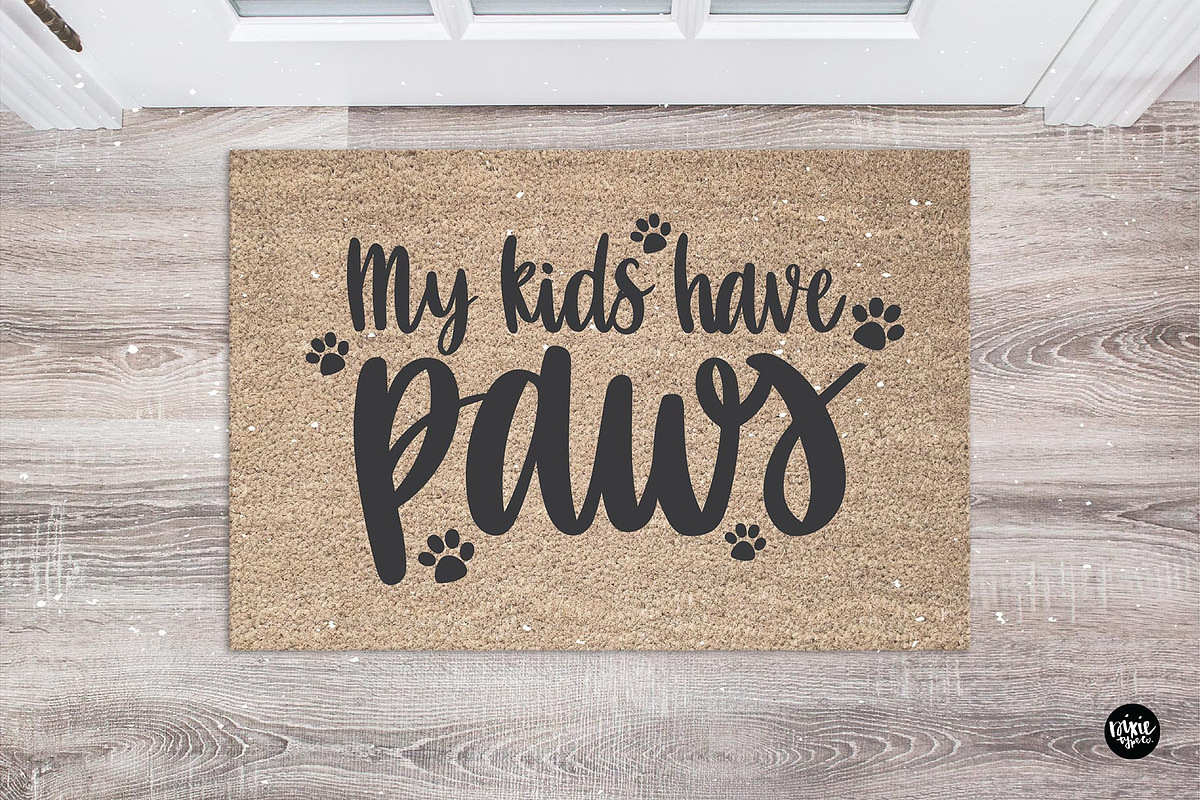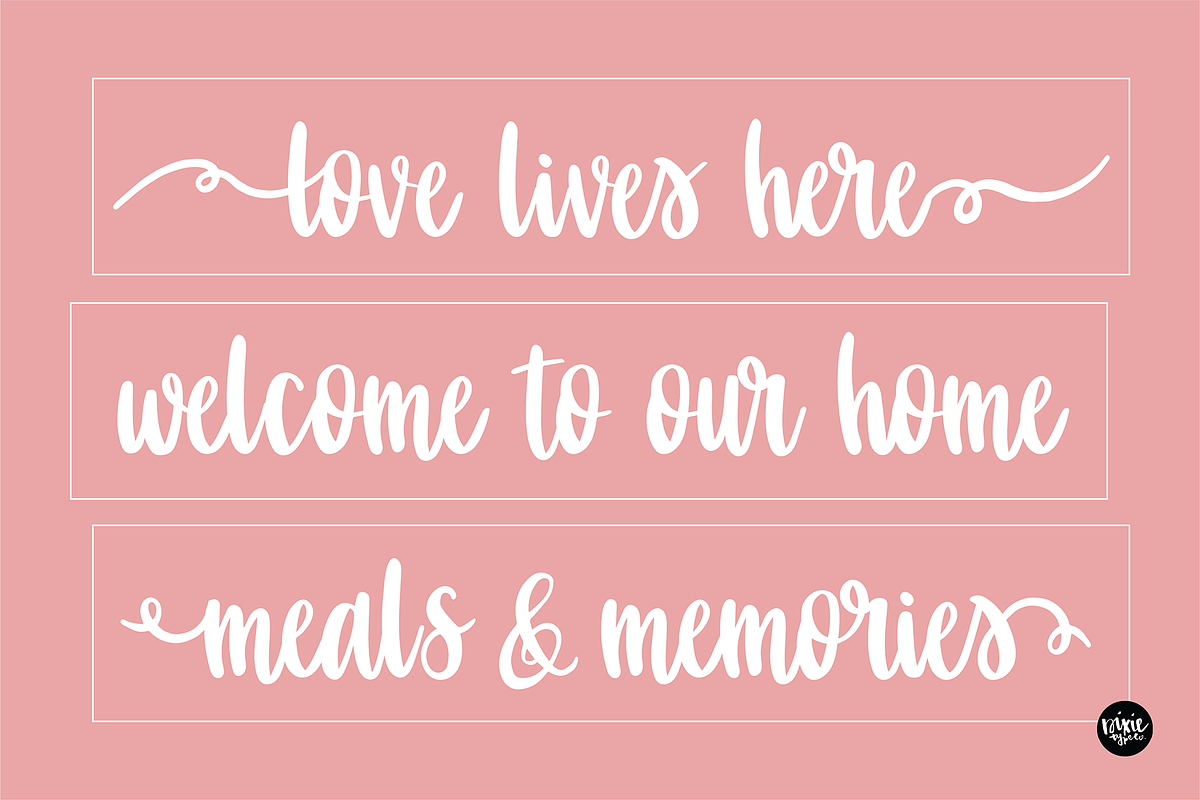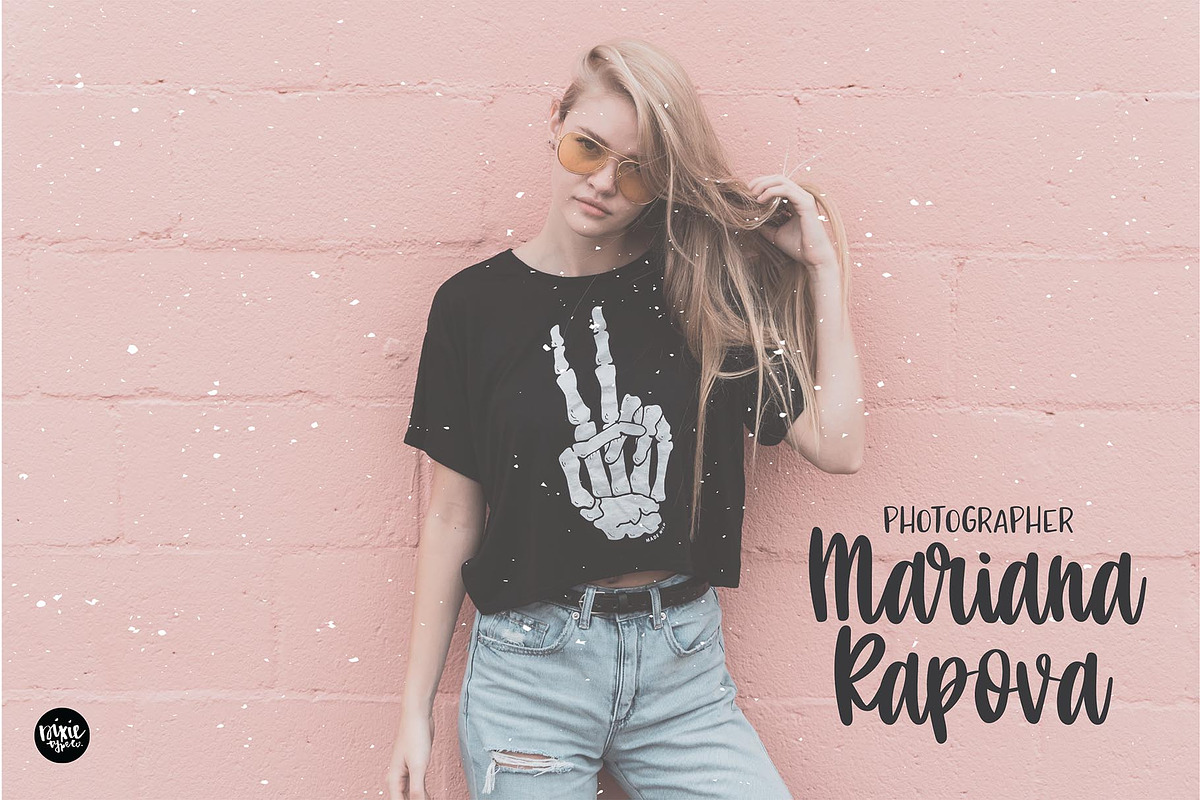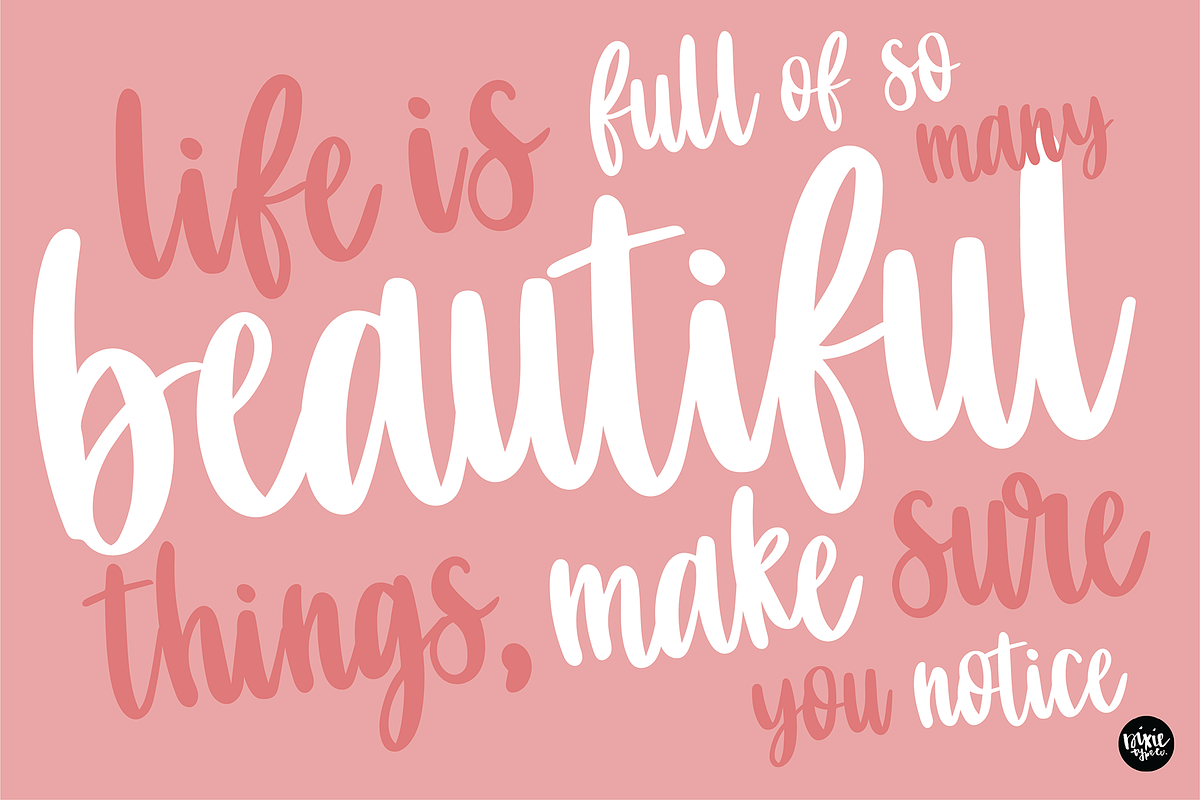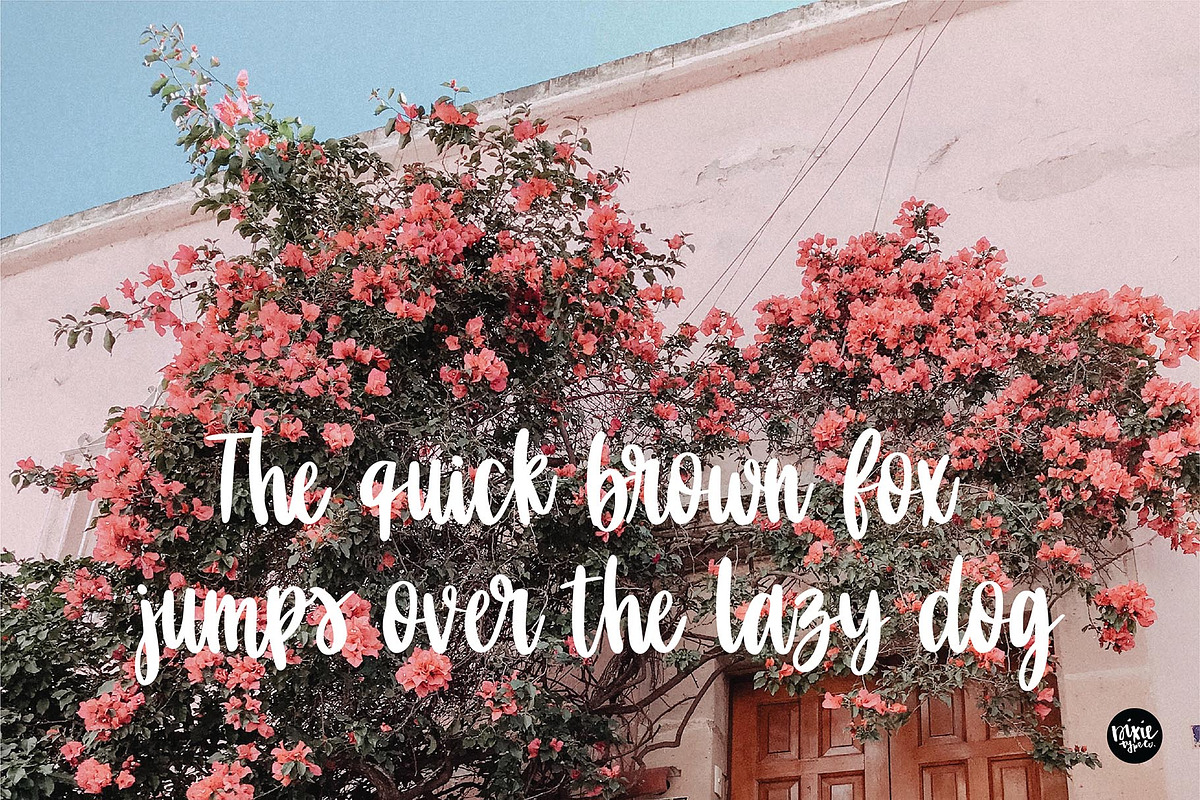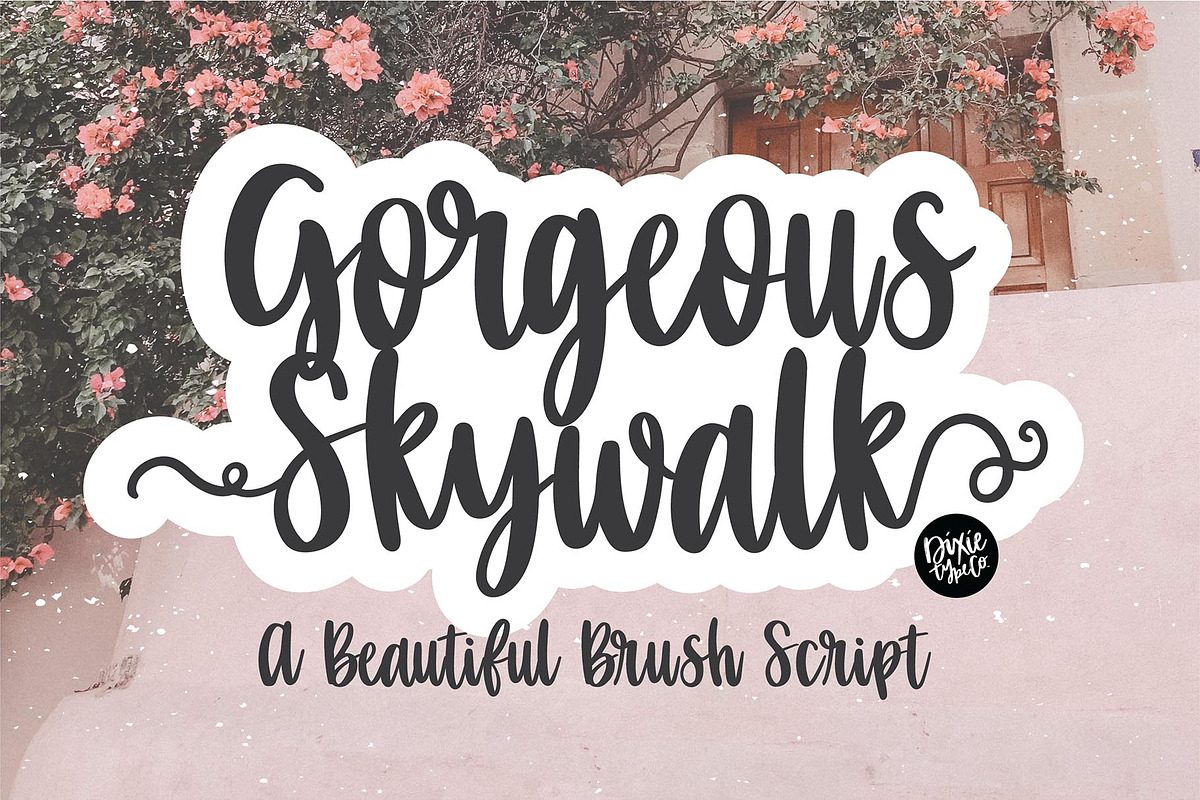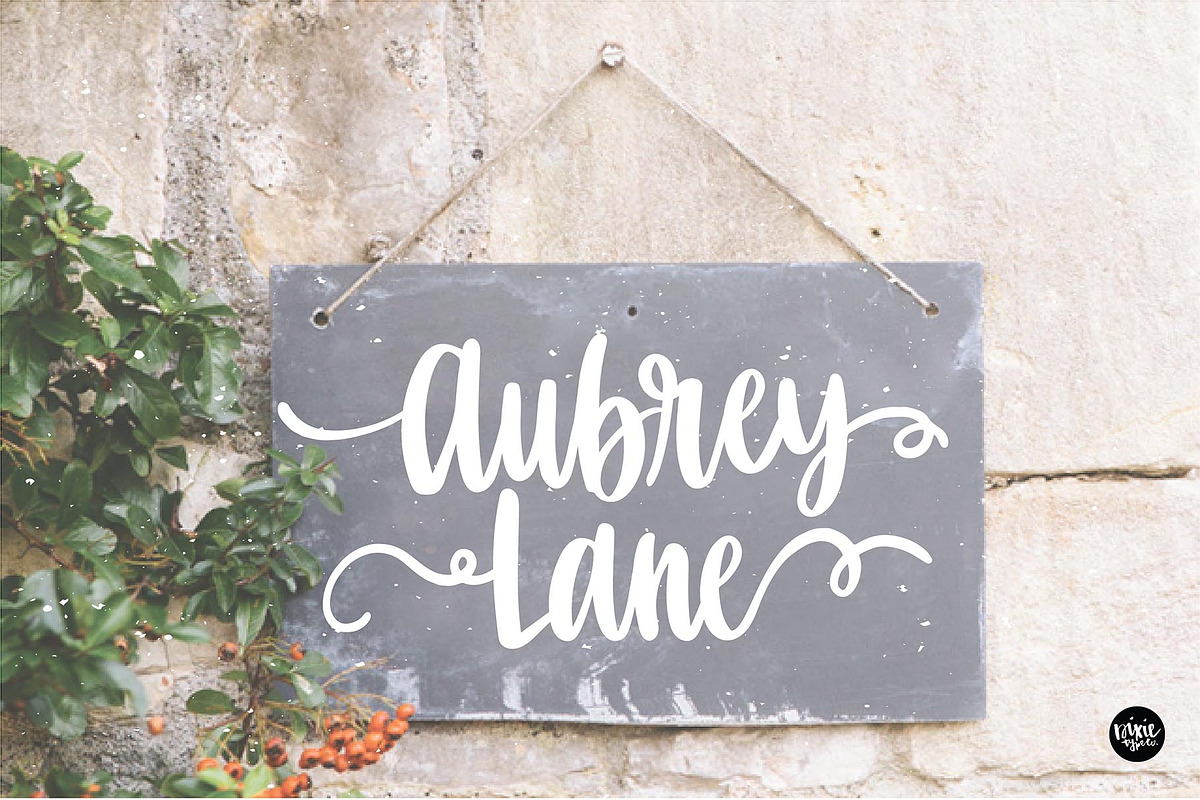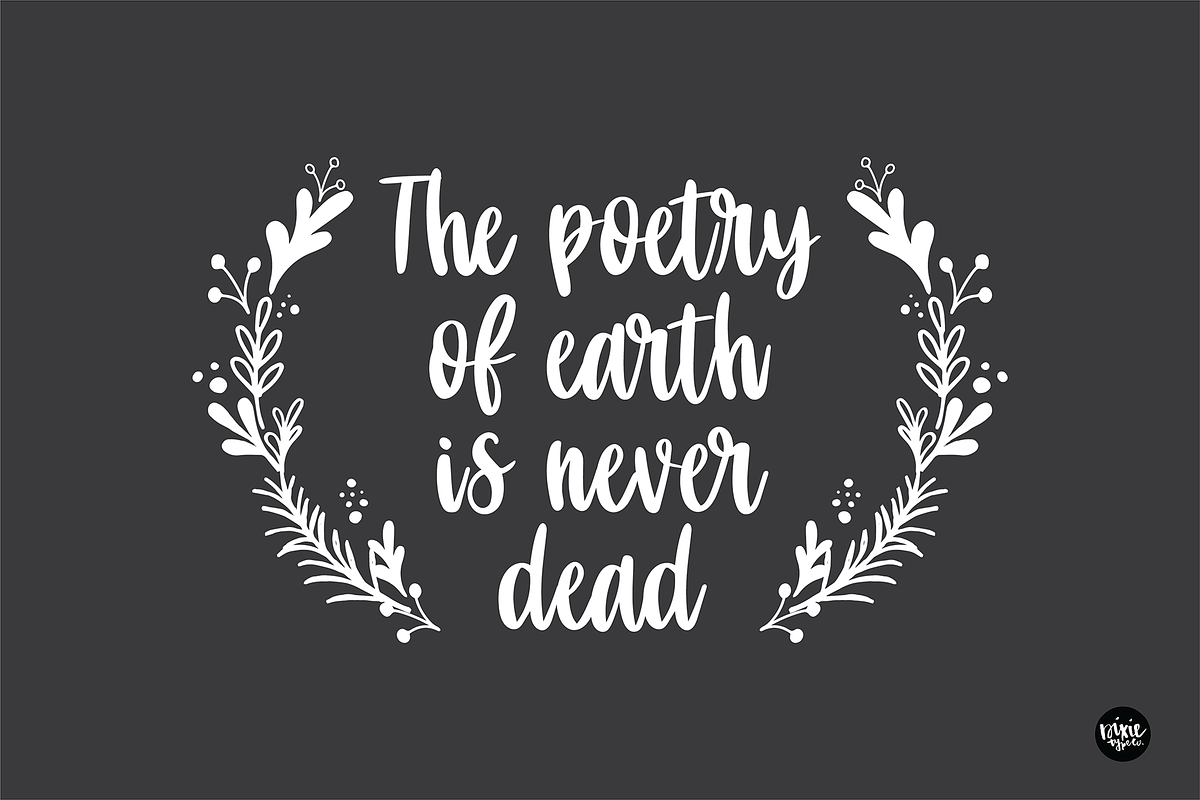
GORGEOUS SKYWALK Script Font
"Gorgeous Skywalk" a farmhouse brush script font
{ A typographic font hand-lettered with love by Dixie Type Co. }
Gorgeous Skywalk is a beautiful hand-lettered script font. This font includes extra flourishes so you can customize your letters as you please! Just weld them to your letters to customize. The flourishes are included in a separate font file.